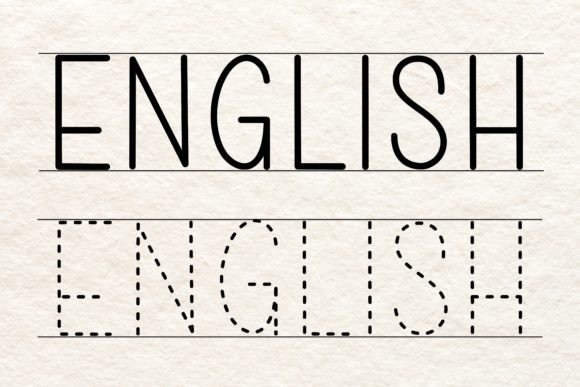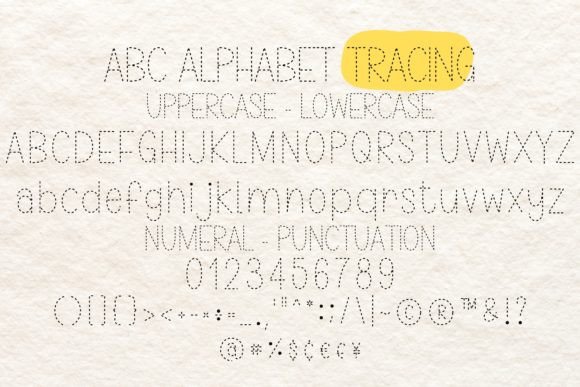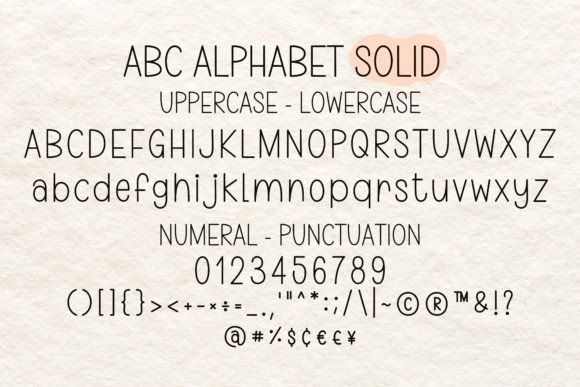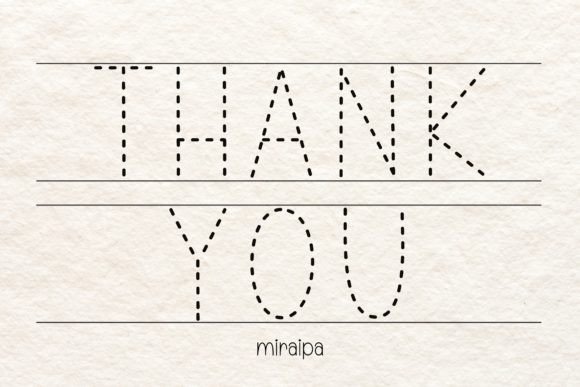
Introducing the ABC Alphabet Tracing Font: A Handwritten Tool for Creative Projects
Are you looking for a unique and engaging way to create alphabet tracing sheets, DIY projects, or simply add a personal touch to your journal or social media posts? Look no further than the ABC Alphabet Tracing Font! This versatile and user-friendly font is perfect for kids and adults alike, offering a fun and interactive way to practice writing and add a friendly touch to any project.
What is the ABC Alphabet Tracing Font?
The ABC Alphabet Tracing Font is a carefully crafted handwritten font designed specifically for creating alphabet tracing sheets and other creative projects. Its clear and concise design makes it easy to read and write, making it an ideal tool for kids who are learning to write, as well as for anyone who wants to add a personal touch to their work.
Key Features of the ABC Alphabet Tracing Font
- Perfect for kids: The font’s clear and simple design makes it easy for kids to learn and practice writing.
- Handwritten style: The font’s handwritten style adds a friendly and approachable touch to any project.
- Versatile: The font can be used for a wide range of projects, including alphabet tracing sheets, DIY projects, journals, planners, and social media posts.
Benefits of Using the ABC Alphabet Tracing Font
- Engage kids in learning: The font’s fun and interactive design makes it perfect for kids who are learning to write.
- Add a personal touch: The font’s handwritten style adds a friendly and approachable touch to any project.
- Save time: The font’s clear and concise design makes it easy to create alphabet tracing sheets and other projects quickly and efficiently.
- Enhance creativity: The font’s versatility makes it perfect for a wide range of creative projects, from DIY crafts to social media posts.
Ideas for Using the ABC Alphabet Tracing Font
The ABC Alphabet Tracing Font is a versatile tool that can be used for a wide range of projects. Here are a few ideas to get you started:
- Alphabet tracing sheets: Create custom alphabet tracing sheets for kids who are learning to write.
- DIY crafts: Use the font to add a personal touch to DIY crafts, such as handmade cards and gift tags.
- Journals and planners: Add a friendly touch to your journal or planner with the ABC Alphabet Tracing Font.
- Social media posts: Use the font to add a personal touch to your social media posts, such as Instagram stories and Facebook updates.
- Invitations: Create custom invitations for parties, events, and other special occasions.